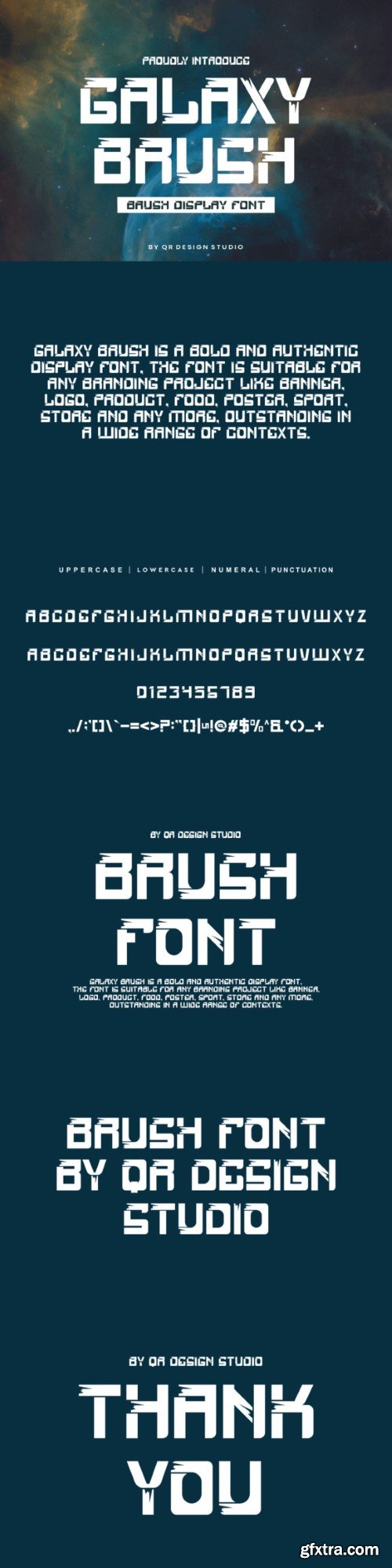
galaxy brush font
Galaxy Brush is a unique and interesting decorative display font. A little bit quirky, this font looks incredibly adept on a wide variety of contexts!